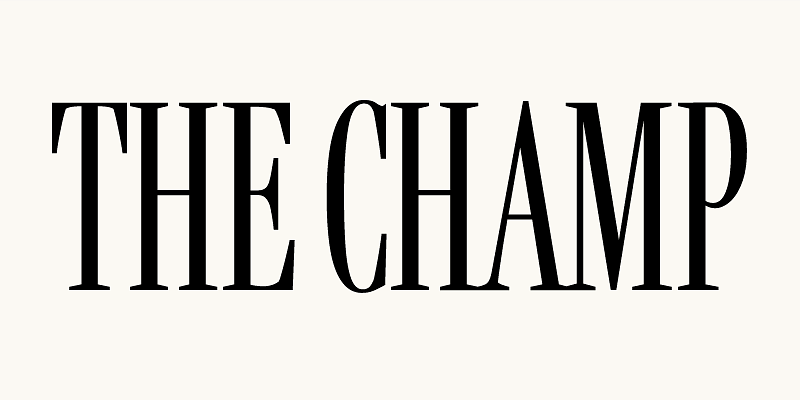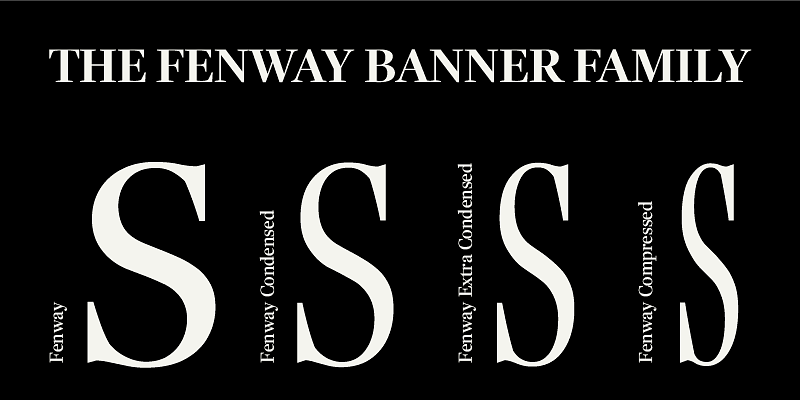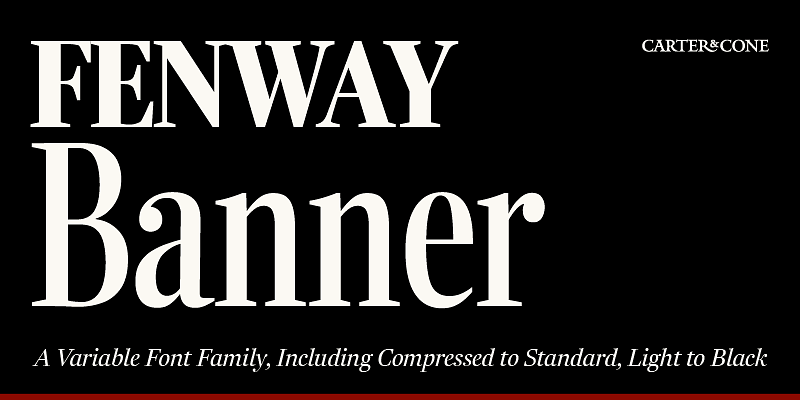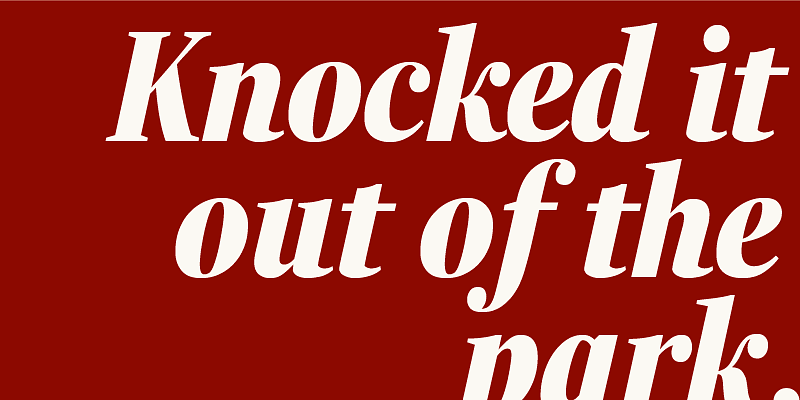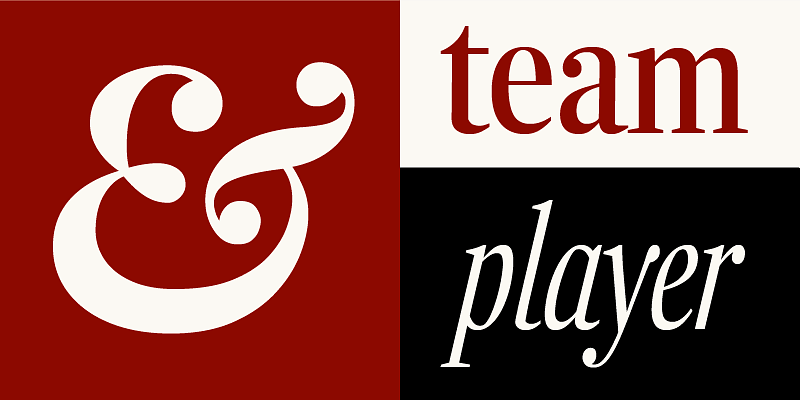
“Fenway Banner is a neoclassical serif design initially commissioned by Sports Illustrated. It has excellent copyfit and strong color—precisely the qualities needed for rigorous book typography and demanding publication design. Matthew Carter designed the Romans to be robust and the Italics economic, both holding the potential to be stalwart mainstays for any typographic designer. Carter & Cone’s Fenway Banner comprises 2 Variable fonts Roman & Italic, including Compressed to Standard, Light to Black.